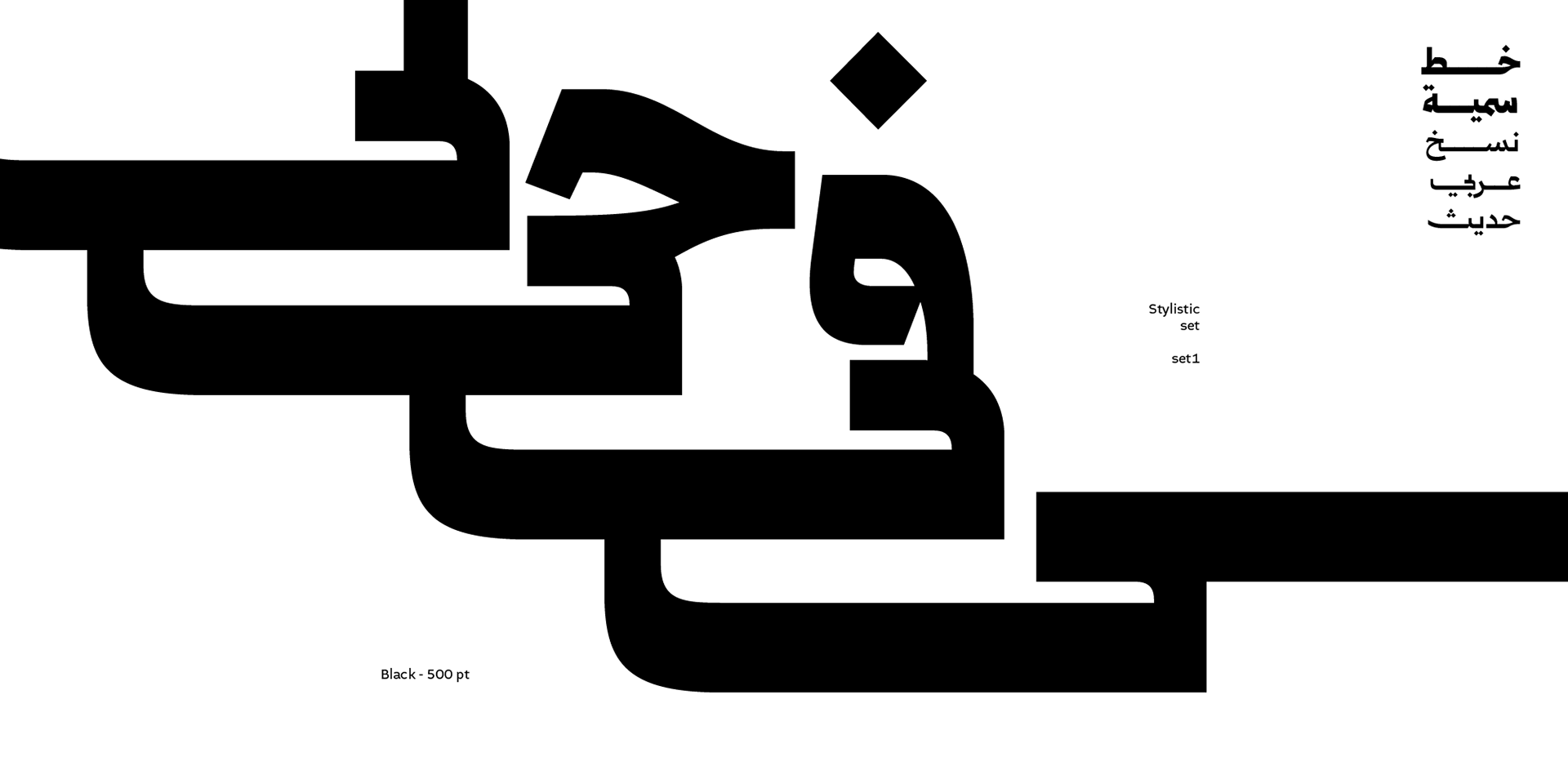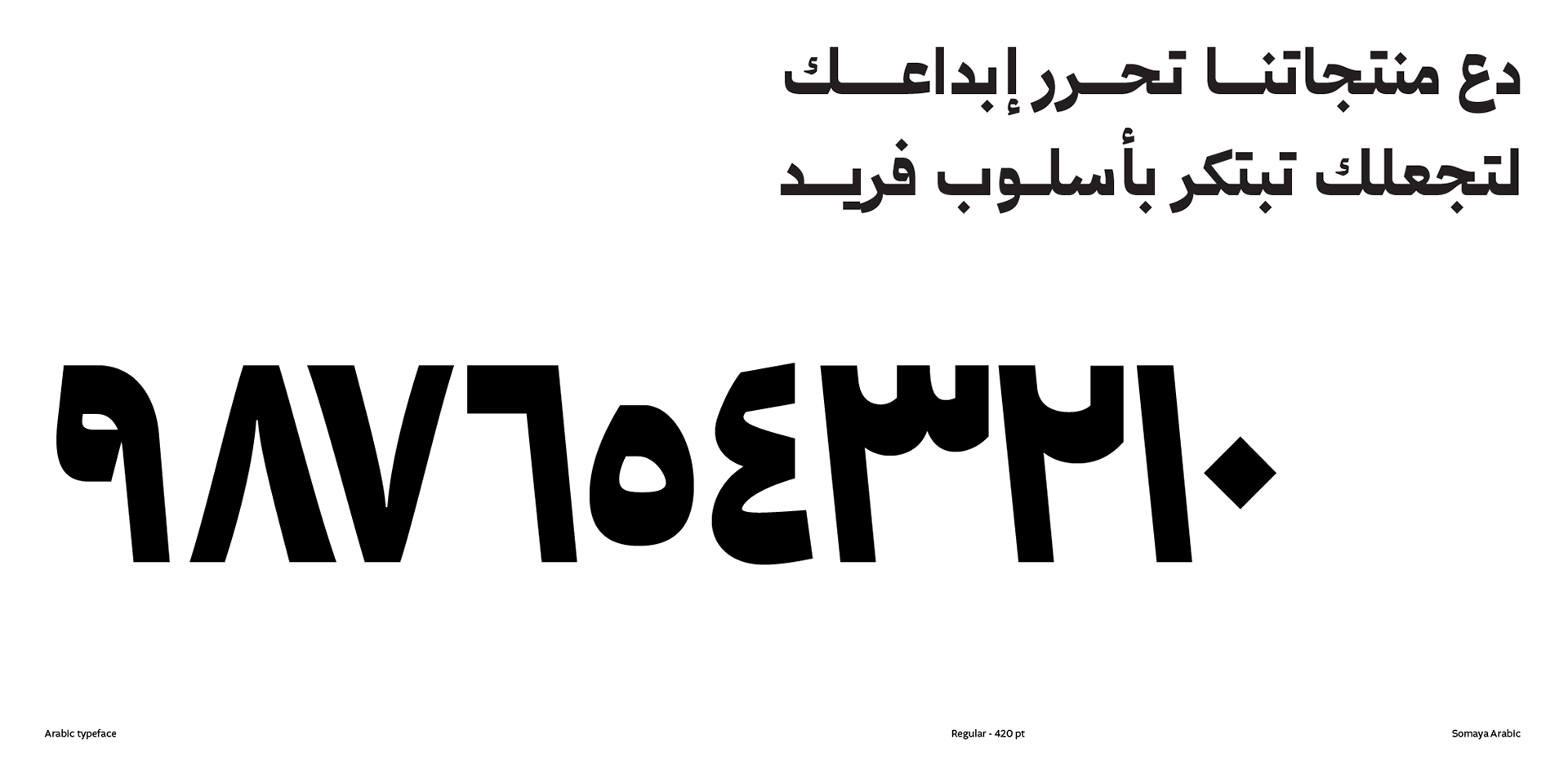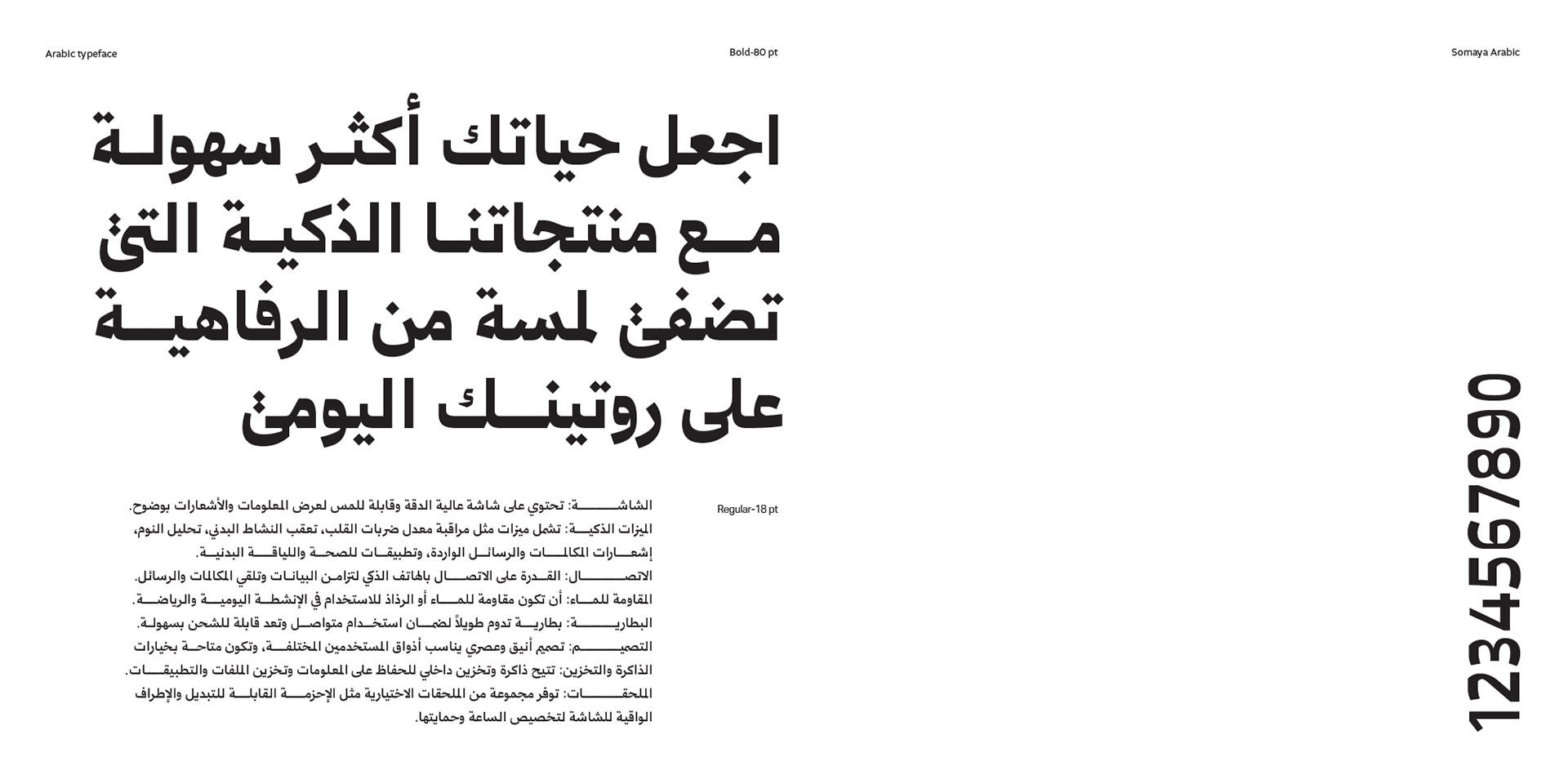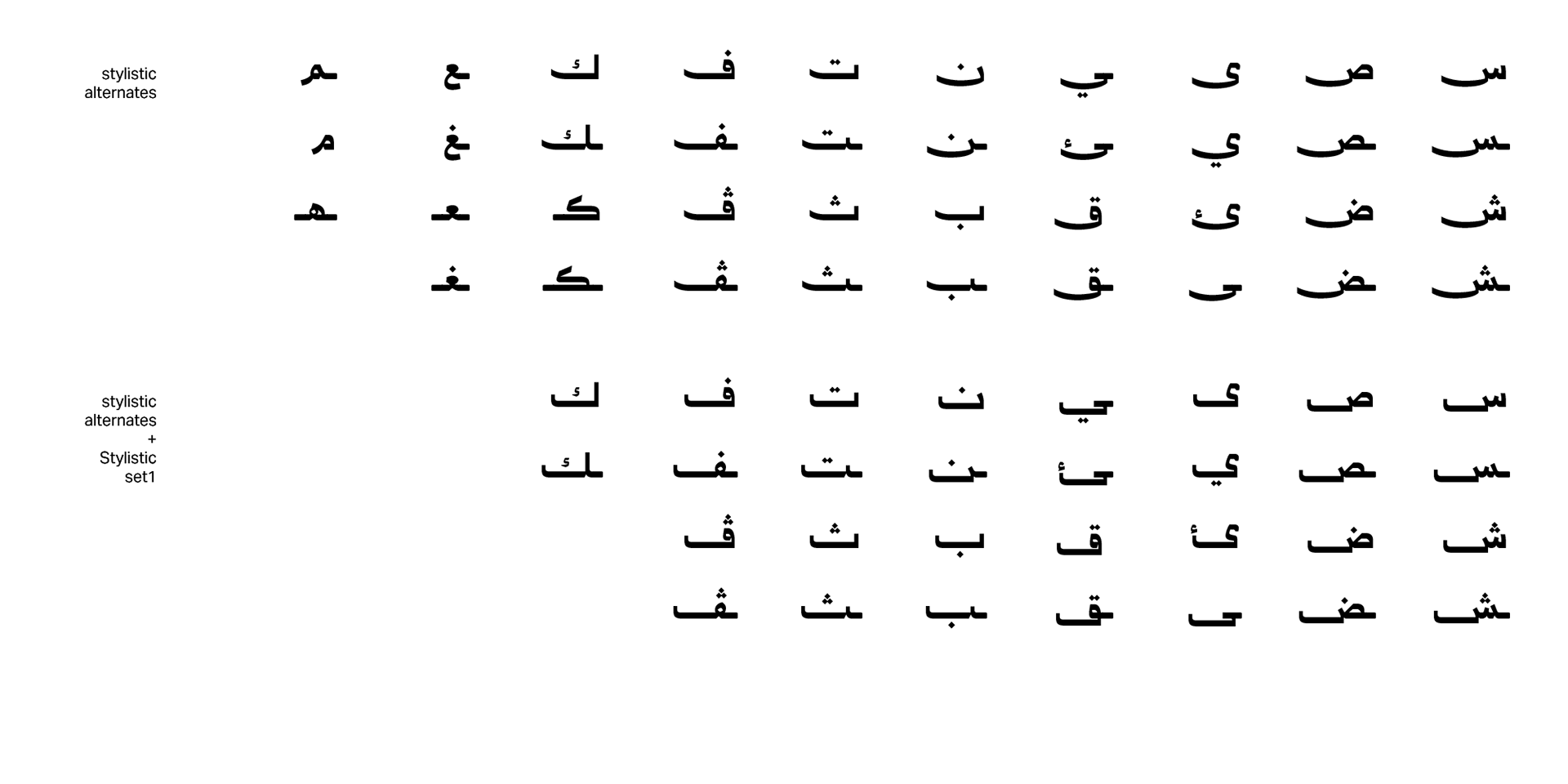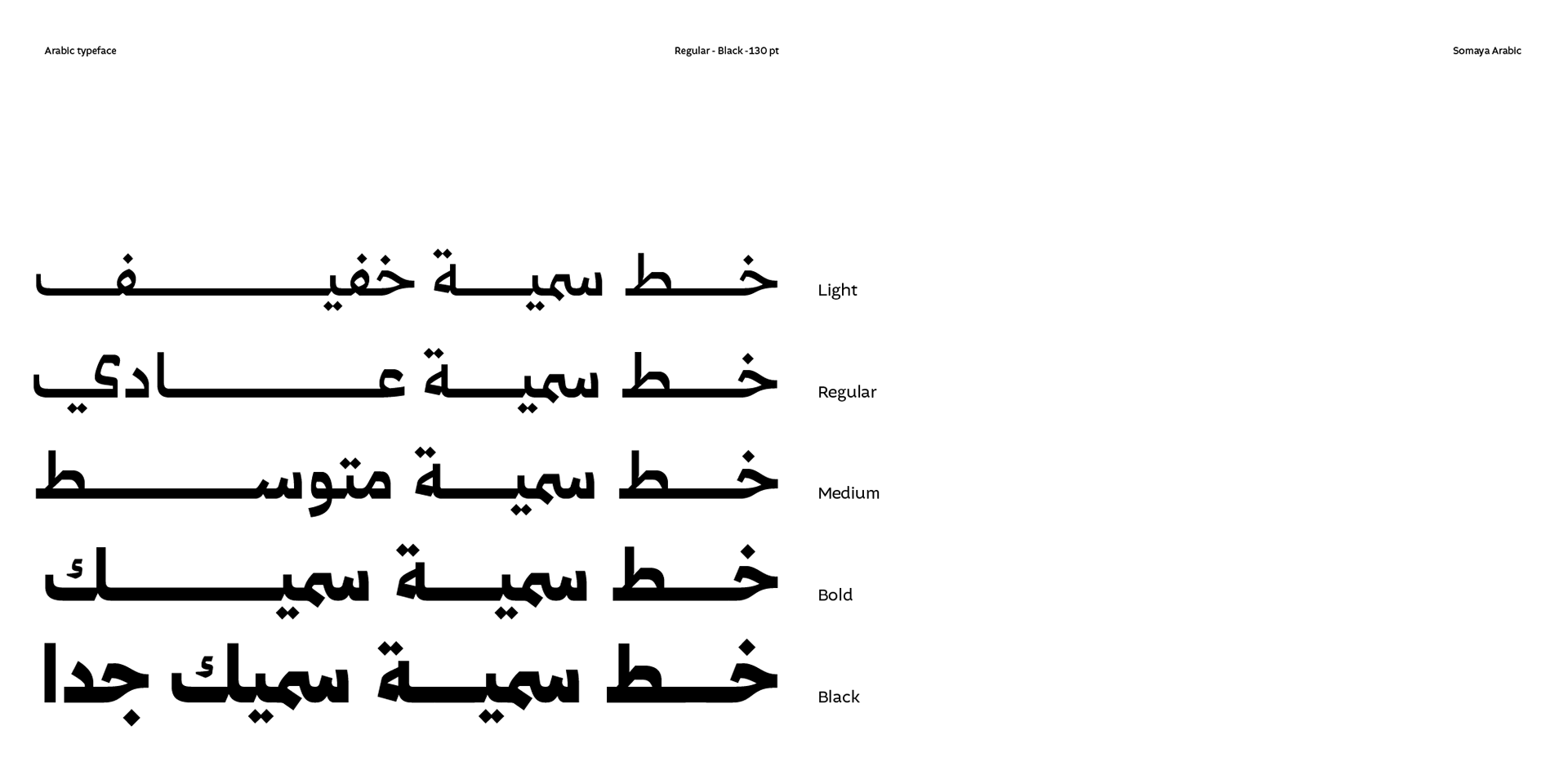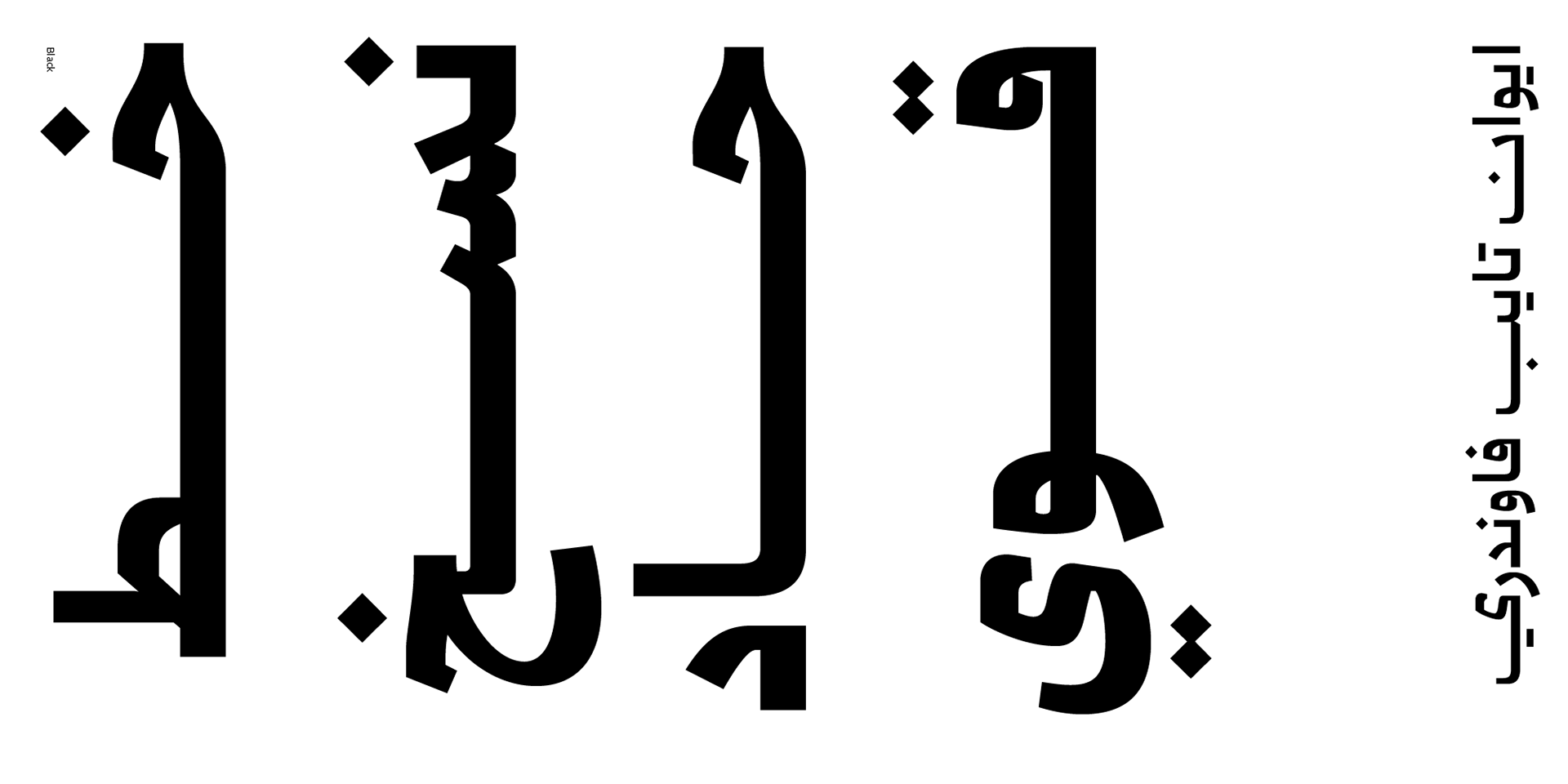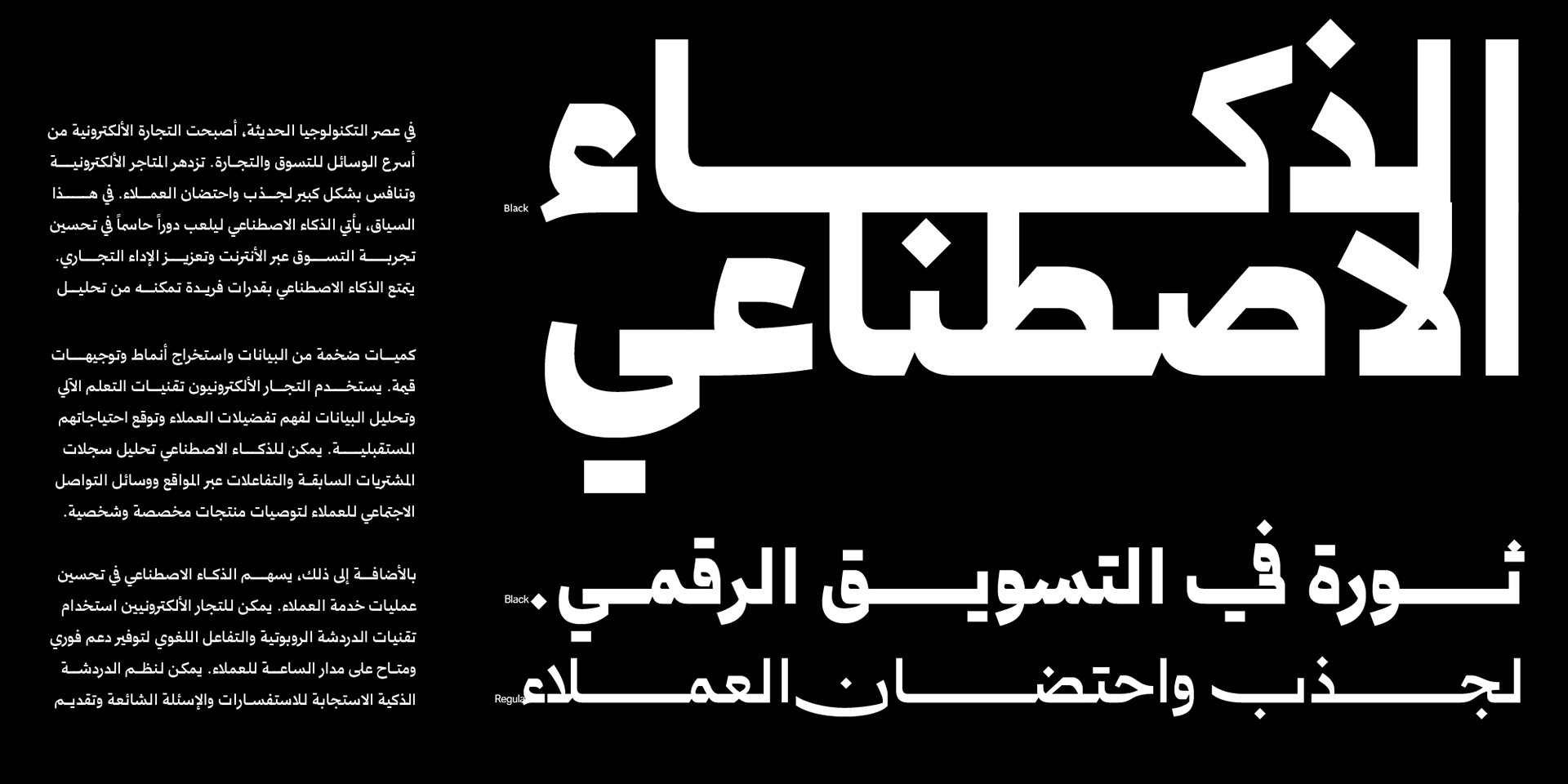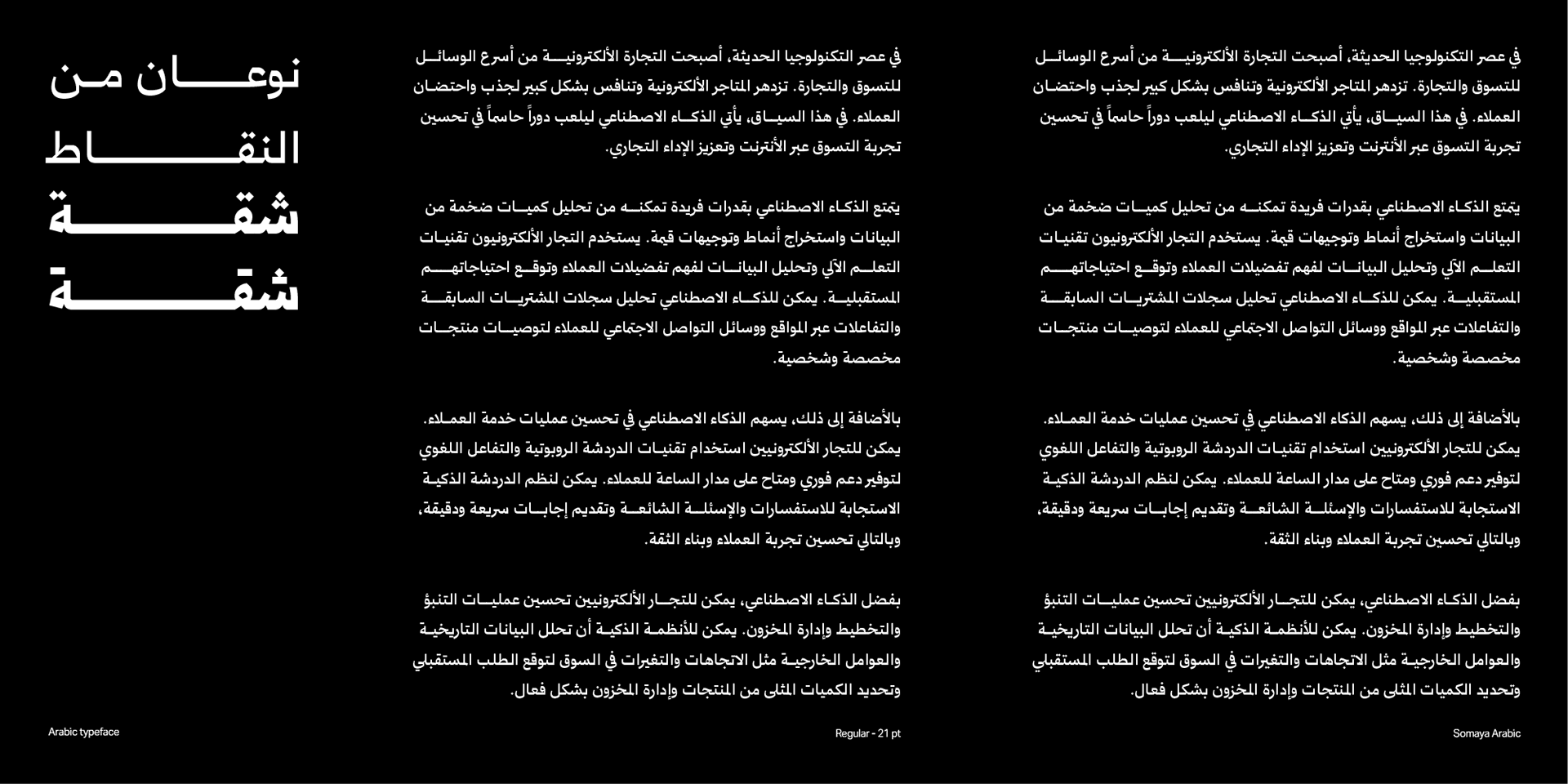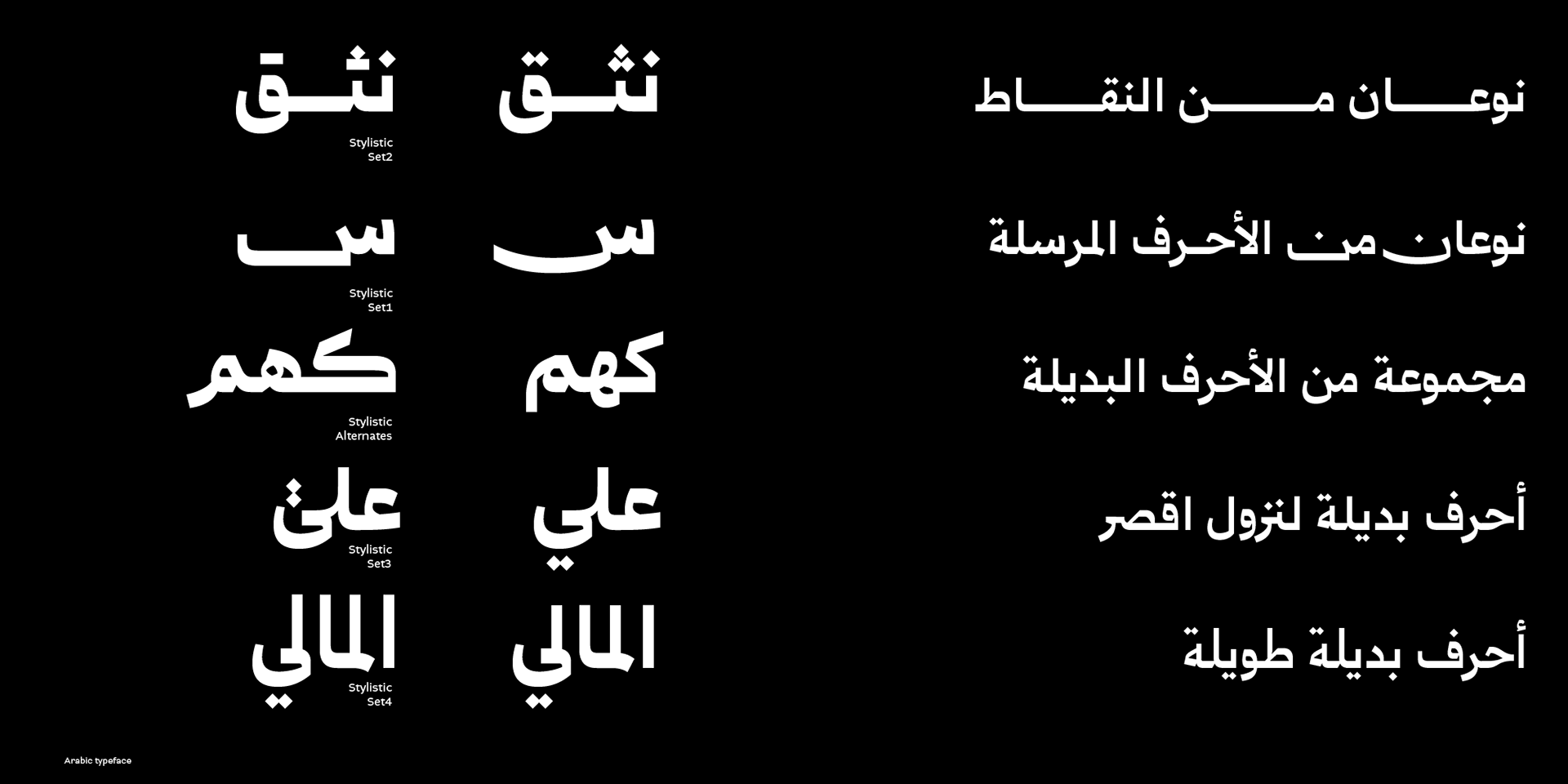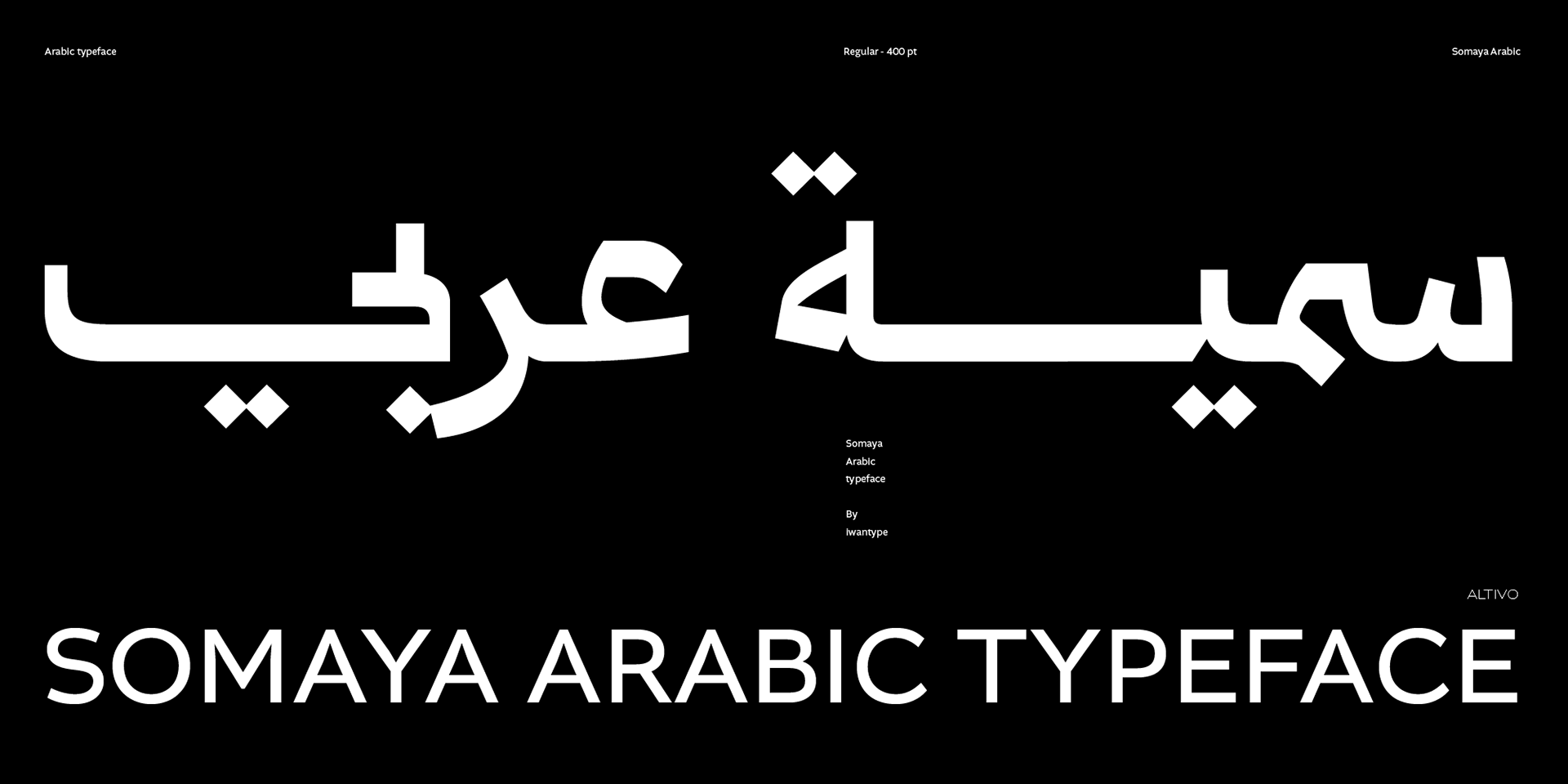
Somaya Arabic typeface - خط سمية عربي
Somaya Arabic typeface is a modern Arabic typeface designed by Ahmed Zaza. the design is inspired by the Naskh style. The result is a hybrid that combines modern proportions with Classic Arabic scripts. it's suitable for branding, editorial, packaging, and advertising. Somaya Arabic typeface Features five weights from Light to black.